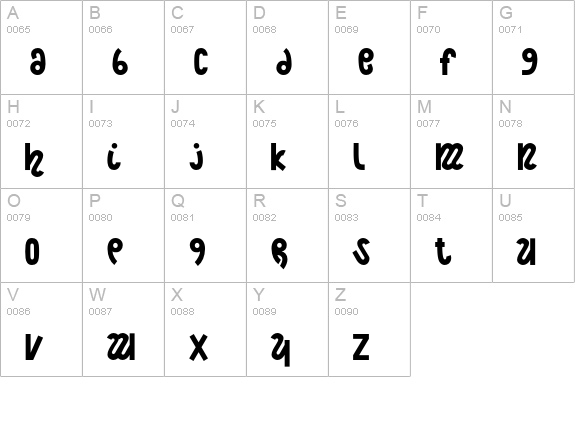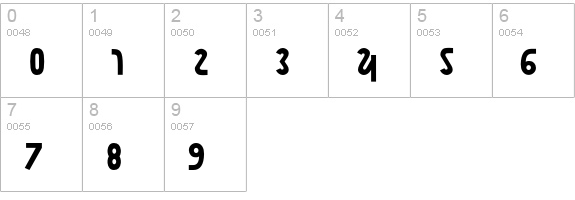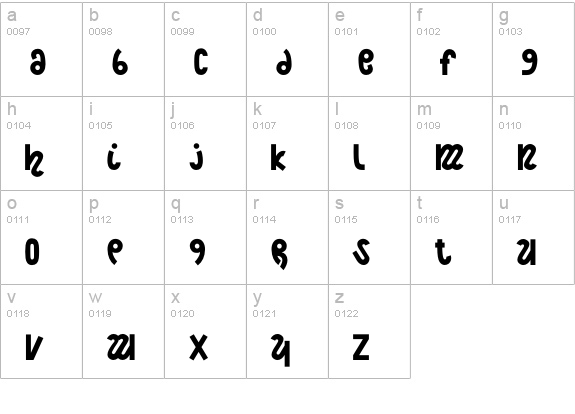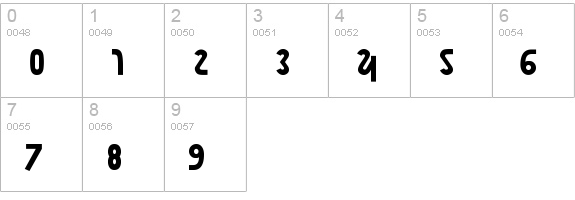
NightCourt font is a modern and sleek typeface that exudes sophistication and elegance. With its sharp edges and stylish curves, this font is perfect for projects that require a touch of class and refinement. The NightCourt font is versatile and can be used for various design purposes, from branding to editorial design. What sets NightCourt font apart is that it is available for free download at FontsMarket.com. This means that you can easily access this beautiful font and incorporate it into your projects without any cost. Whether you are a designer looking for a new font to add to your collection or a business owner in need of a fresh look for your branding, NightCourt font is the perfect choice. Download it today and elevate your designs to the next level with this stunning typeface.